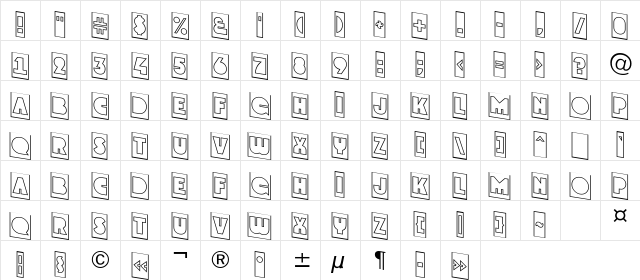
a_GrotoCmOtlDn Regular Font Preview
a_GrotoCmOtlDn Regular
Design Context for a_GrotoCmOtlDn Typeface
a_GrotoCmOtlDn is a composed and adaptable typeface that performs quietly and consistently across a wide range of design contexts.